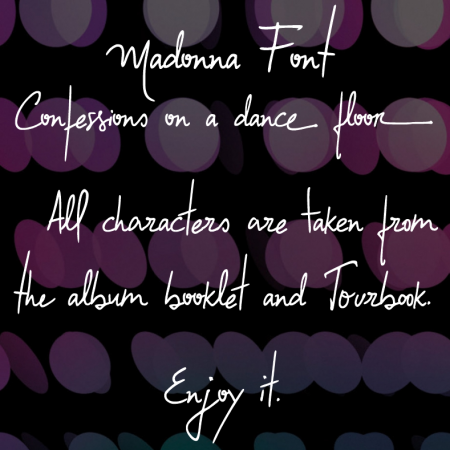
Madonna Font
The Madonna Font is a font based on the album “Confessions on a Dancefloor” by Madonna.
All the characters are based on the album booklet and the tourbook.